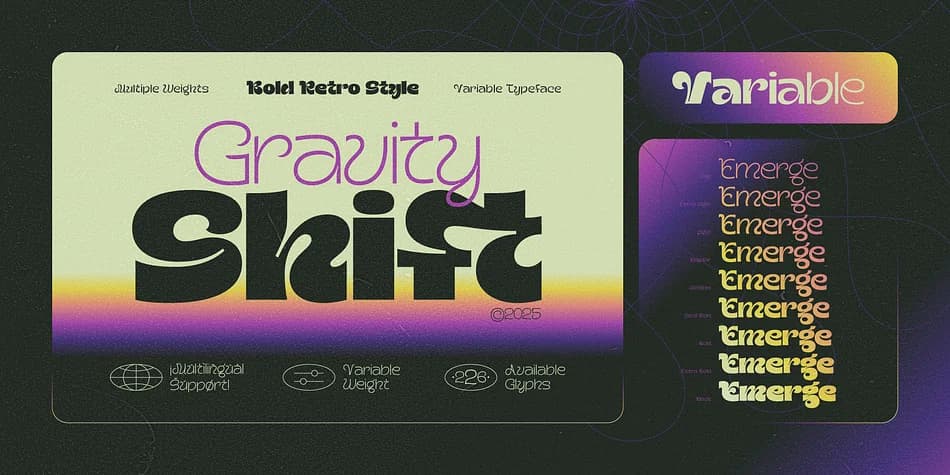
This typeface hits the sweet spot where 1970s optimism meets digital-age intrigue. Gravity Shift, designed by Gleb Guralnyk, is a variable font that moves fluidly between whisper-thin and heavyweight styles while maintaining its underlying architectural poise. The relationship between extremes creates a personality that reads as both authoritative and refined, capable of holding its own in any layout.
It really shines in steampunk book covers, retro-futuristic merchandise branding, sci-fi video game interfaces, and analog-meets-digital album artwork. You could also lean on it for neon-inspired apparel labels, boutique tech company presentation slides, or packaging designs that want vintage flair mixed with contemporary edge. The font family includes nine distinct weights ranging from Thin to Black. Its variable version gives you every single option in a single file, which saves you from loading multiple static weights. You get solid multilingual support as well, meaning international projects stay on-brand without language workarounds.
For best results, pair it with something calm and minimal, like a clean sans-serif such as Source Sans or Montserrat, so Gravity Shift takes center stage without competing noise. Grab it from Creative Fabrica and start designing with some real edge.
Gravity Shift Font is a decorative font that shines as a display or heading face. Pair it with a clean sans-serif or serif font for body text — the contrast creates a clear hierarchy while the two styles stay balanced and easy to read.